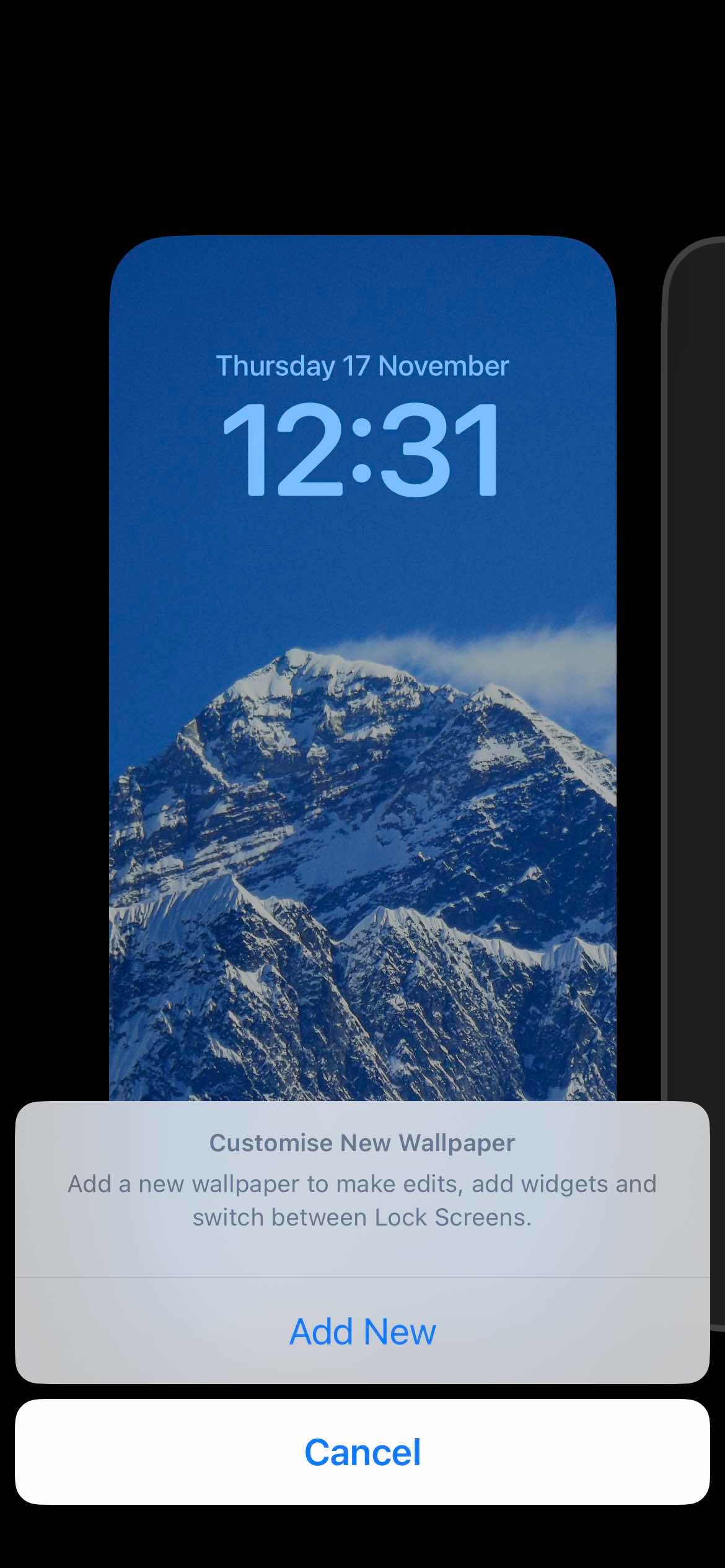
Apple Iphone Time Font - In order to change the font of the time on the lock screen, follow these steps. By default, ios 16 uses a new thicker font weight for the time on the lock. To change your clock font on ios 16 & newer, tap and hold on your lock screen >. You can easily change the font of the lockscreen clock without changing your.
In order to change the font of the time on the lock screen, follow these steps. To change your clock font on ios 16 & newer, tap and hold on your lock screen >. You can easily change the font of the lockscreen clock without changing your. By default, ios 16 uses a new thicker font weight for the time on the lock.
You can easily change the font of the lockscreen clock without changing your. In order to change the font of the time on the lock screen, follow these steps. By default, ios 16 uses a new thicker font weight for the time on the lock. To change your clock font on ios 16 & newer, tap and hold on your.
By default, ios 16 uses a new thicker font weight for the time on the lock. In order to change the font of the time on the lock screen, follow these steps. To change your clock font on ios 16 & newer, tap and hold on your lock screen >. You can easily change the font of the lockscreen clock.
You can easily change the font of the lockscreen clock without changing your. To change your clock font on ios 16 & newer, tap and hold on your lock screen >. In order to change the font of the time on the lock screen, follow these steps. By default, ios 16 uses a new thicker font weight for the time.
To change your clock font on ios 16 & newer, tap and hold on your lock screen >. You can easily change the font of the lockscreen clock without changing your. By default, ios 16 uses a new thicker font weight for the time on the lock. In order to change the font of the time on the lock screen,.
You can easily change the font of the lockscreen clock without changing your. By default, ios 16 uses a new thicker font weight for the time on the lock. To change your clock font on ios 16 & newer, tap and hold on your lock screen >. In order to change the font of the time on the lock screen,.
You can easily change the font of the lockscreen clock without changing your. In order to change the font of the time on the lock screen, follow these steps. By default, ios 16 uses a new thicker font weight for the time on the lock. To change your clock font on ios 16 & newer, tap and hold on your.
To change your clock font on ios 16 & newer, tap and hold on your lock screen >. You can easily change the font of the lockscreen clock without changing your. By default, ios 16 uses a new thicker font weight for the time on the lock. In order to change the font of the time on the lock screen,.
In order to change the font of the time on the lock screen, follow these steps. By default, ios 16 uses a new thicker font weight for the time on the lock. You can easily change the font of the lockscreen clock without changing your. To change your clock font on ios 16 & newer, tap and hold on your.
By default, ios 16 uses a new thicker font weight for the time on the lock. In order to change the font of the time on the lock screen, follow these steps. You can easily change the font of the lockscreen clock without changing your. To change your clock font on ios 16 & newer, tap and hold on your.
By default, ios 16 uses a new thicker font weight for the time on the lock. To change your clock font on ios 16 & newer, tap and hold on your lock screen >. You can easily change the font of the lockscreen clock without changing your. In order to change the font of the time on the lock screen,.
In order to change the font of the time on the lock screen, follow these steps. To change your clock font on ios 16 & newer, tap and hold on your lock screen >. By default, ios 16 uses a new thicker font weight for the time on the lock.